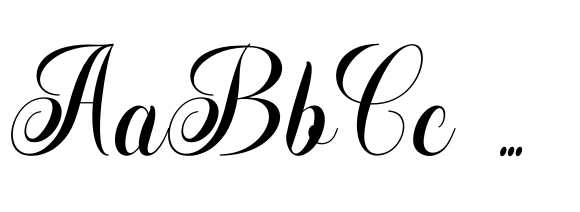
Anzilam
von Din Studio
Die Schriftfamilie Anzilam wurde von Donis Miftahudin entworfen und von Din Studio veröffentlicht. Anzilam enthält 1 Stile.
Anzilam is a modern calligraphy font. It brings a beautiful and attractive typeface. Made for any professional project branding. It is the best for logos, branding, wedding and quotes.
Din Studio is a type design studio founded by Donis Miftahudin in 2017. The studio focuses on creating unique and visually appealing script and display fonts that stand out in the industry. Donis Miftahudin is a well-known type designer in the industry and has created several popular fonts under the Din Studio brand.The fonts designed by Din Studio are characterized by their distinct style and aesthetic appeal. The studio's designs often incorporate unique elements, such as intricate ligatures and swashes, to create fonts that are not only visually stunning but also highly functional. The studio's fonts are often used in a variety of applications, including branding, advertising, and editorial design.Din Studio's fonts are highly regarded in the design community and have received recognition from industry publications and organizations. The studio has been featured in several design blogs and magazines, and its fonts have won awards at prestigious design competitions.One of the hallmarks of Din Studio's work is its commitment to innovation and experimentation. The studio is constantly exploring new techniques and approaches to type design, pushing the boundaries of what is possible in the field. This dedication to innovation has helped Din Studio establish itself as one of the most exciting and influential type design studios in the industry.Overall, Din Studio is a dynamic and innovative type design studio that is pushing the boundaries of what is possible in the field. With its focus on unique and visually appealing script and display fonts, the studio is poised to continue making a significant impact in the design community for years to come.